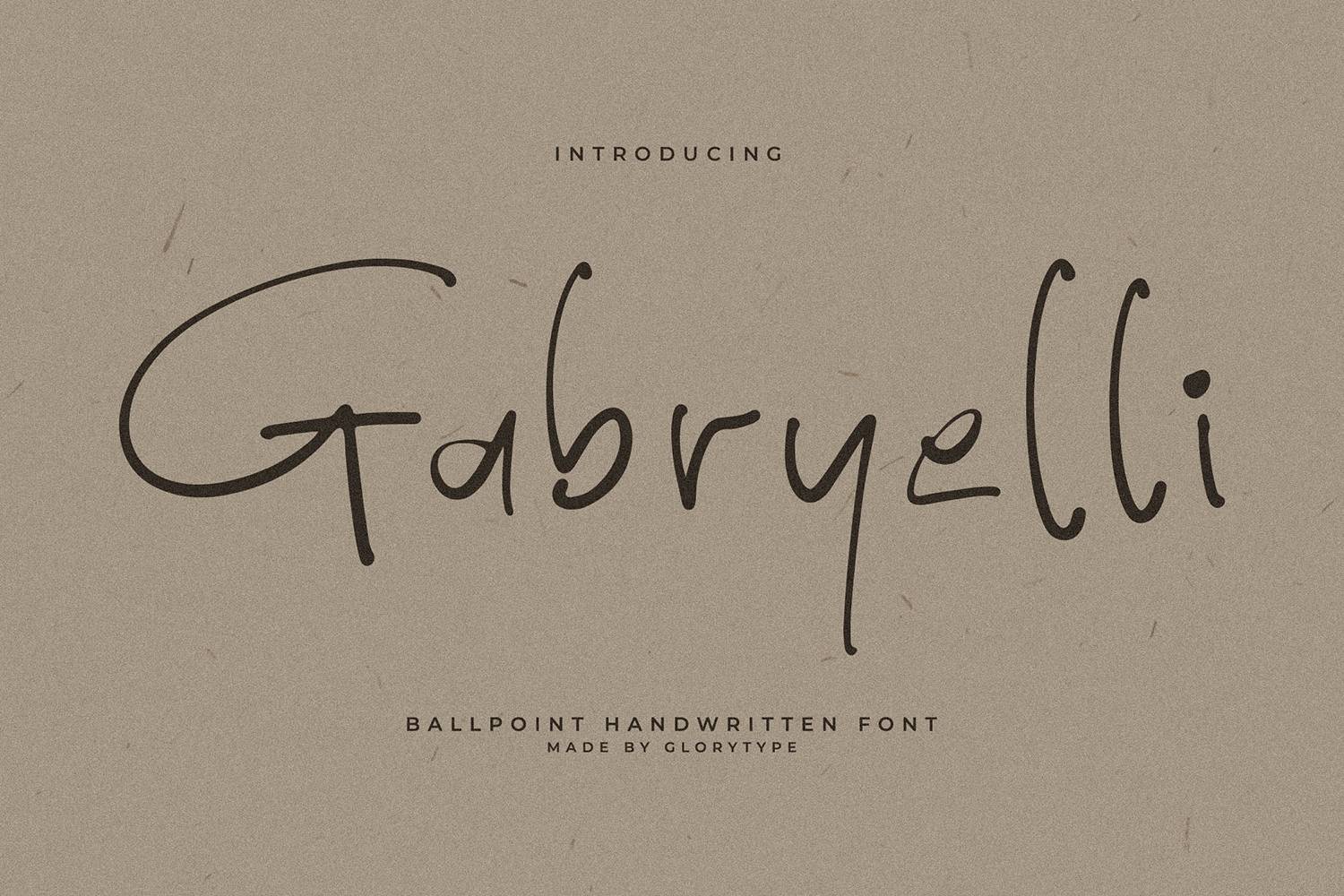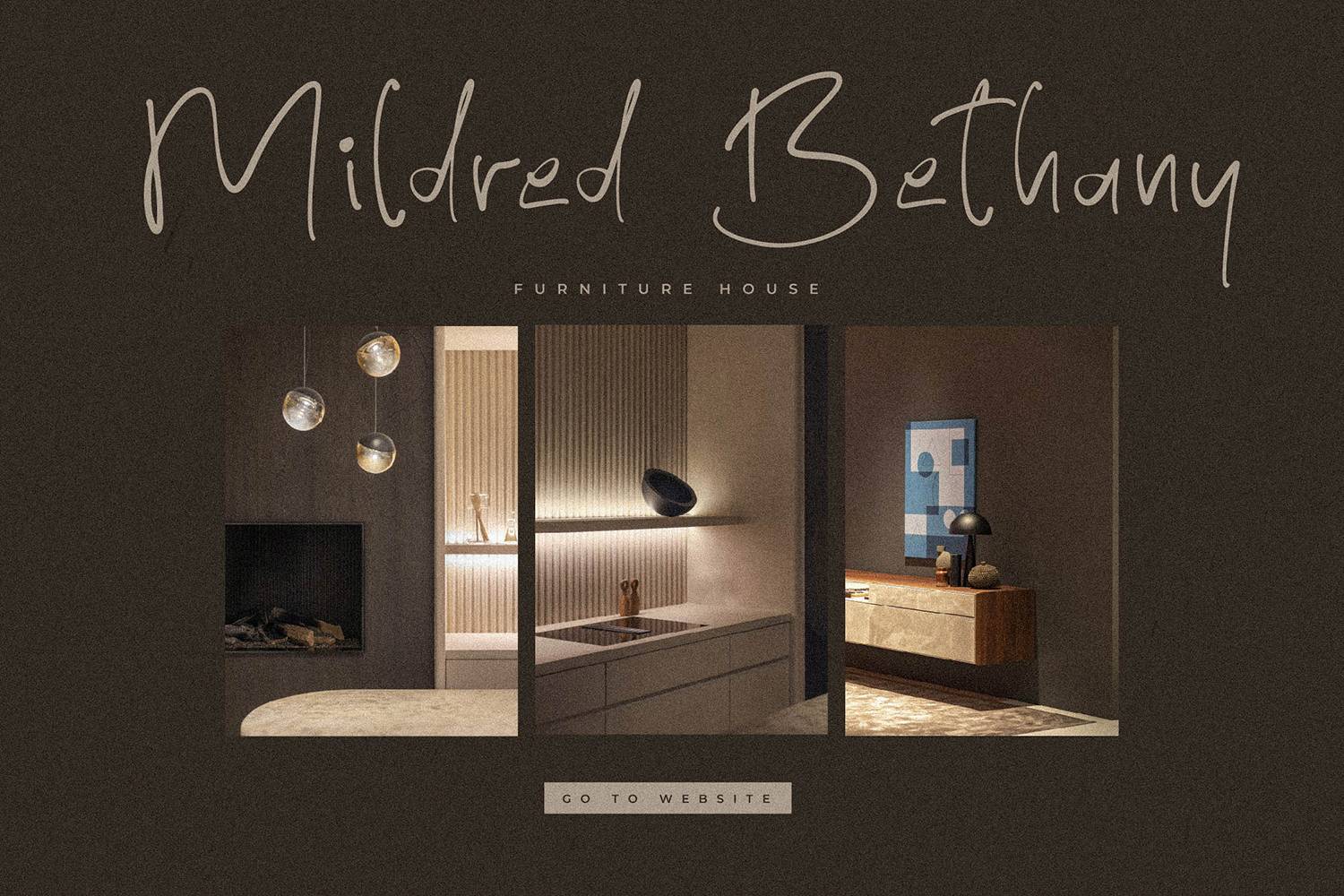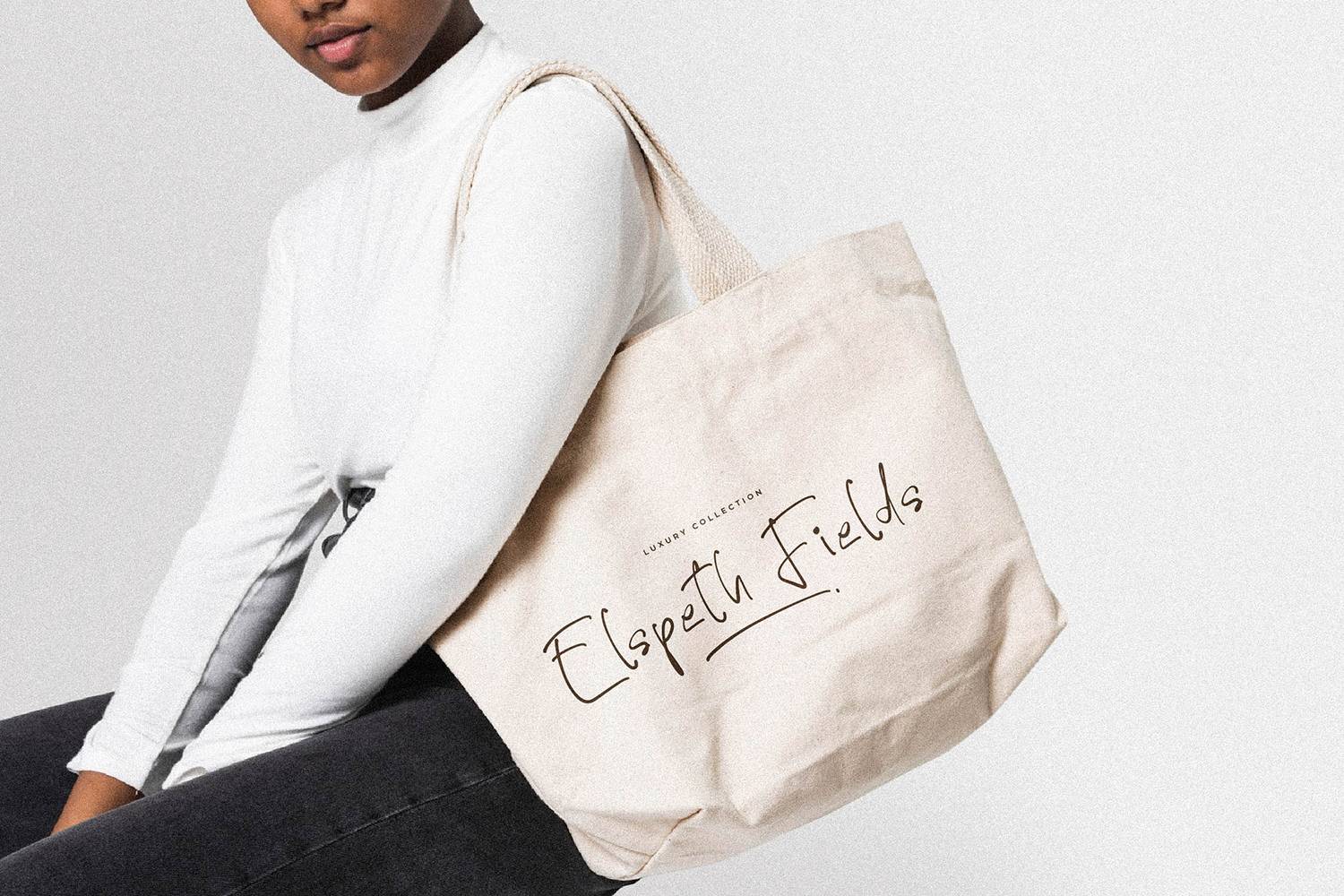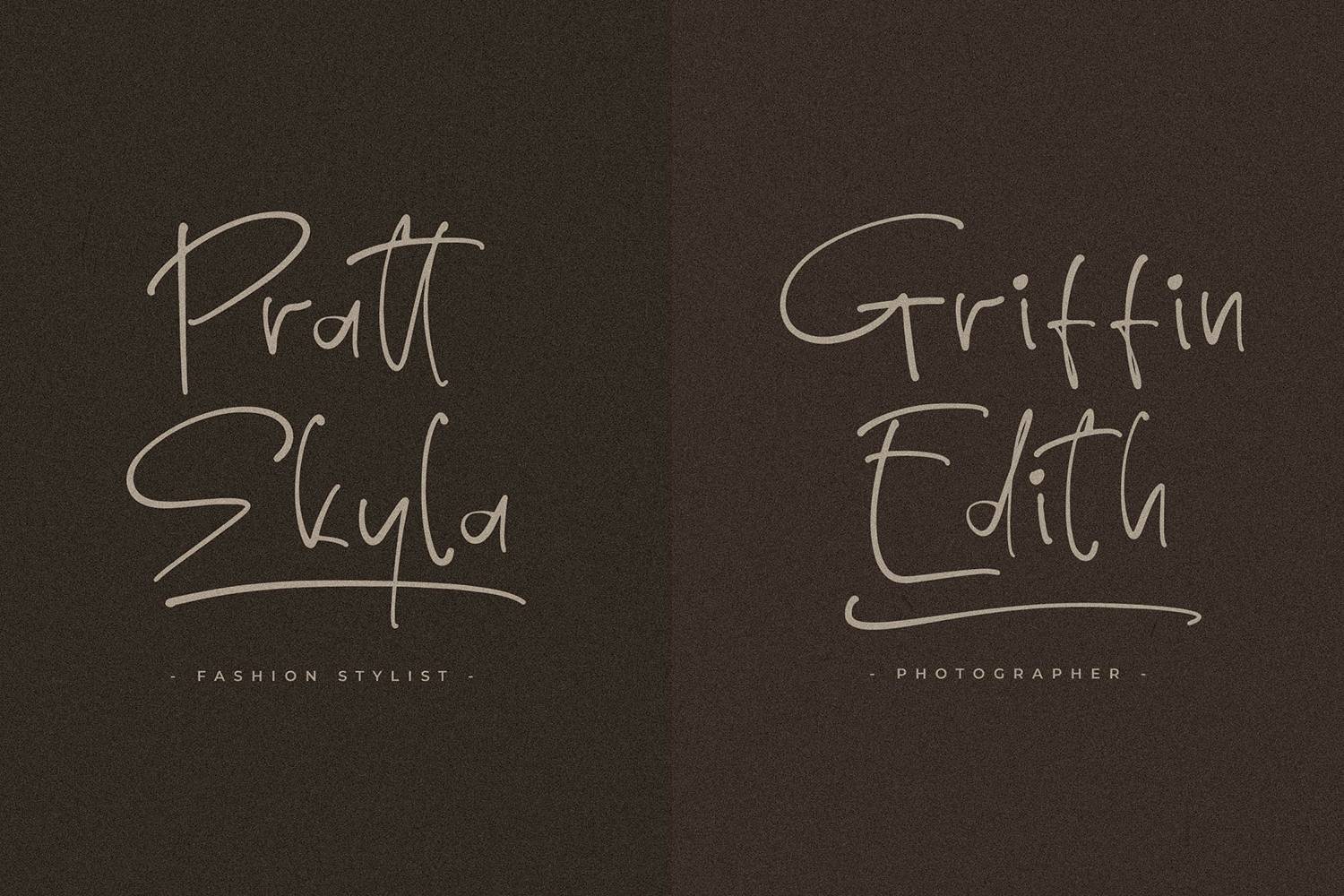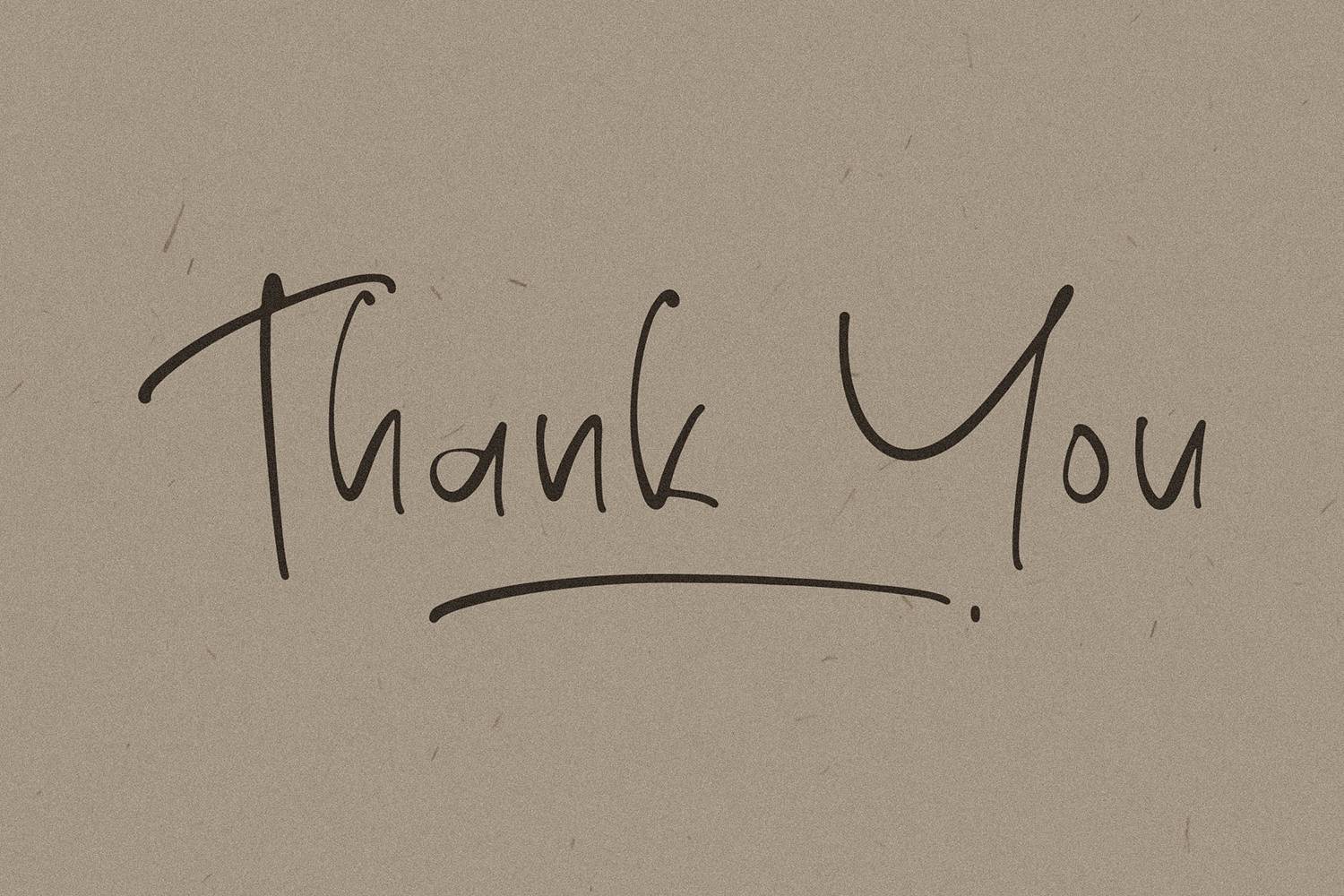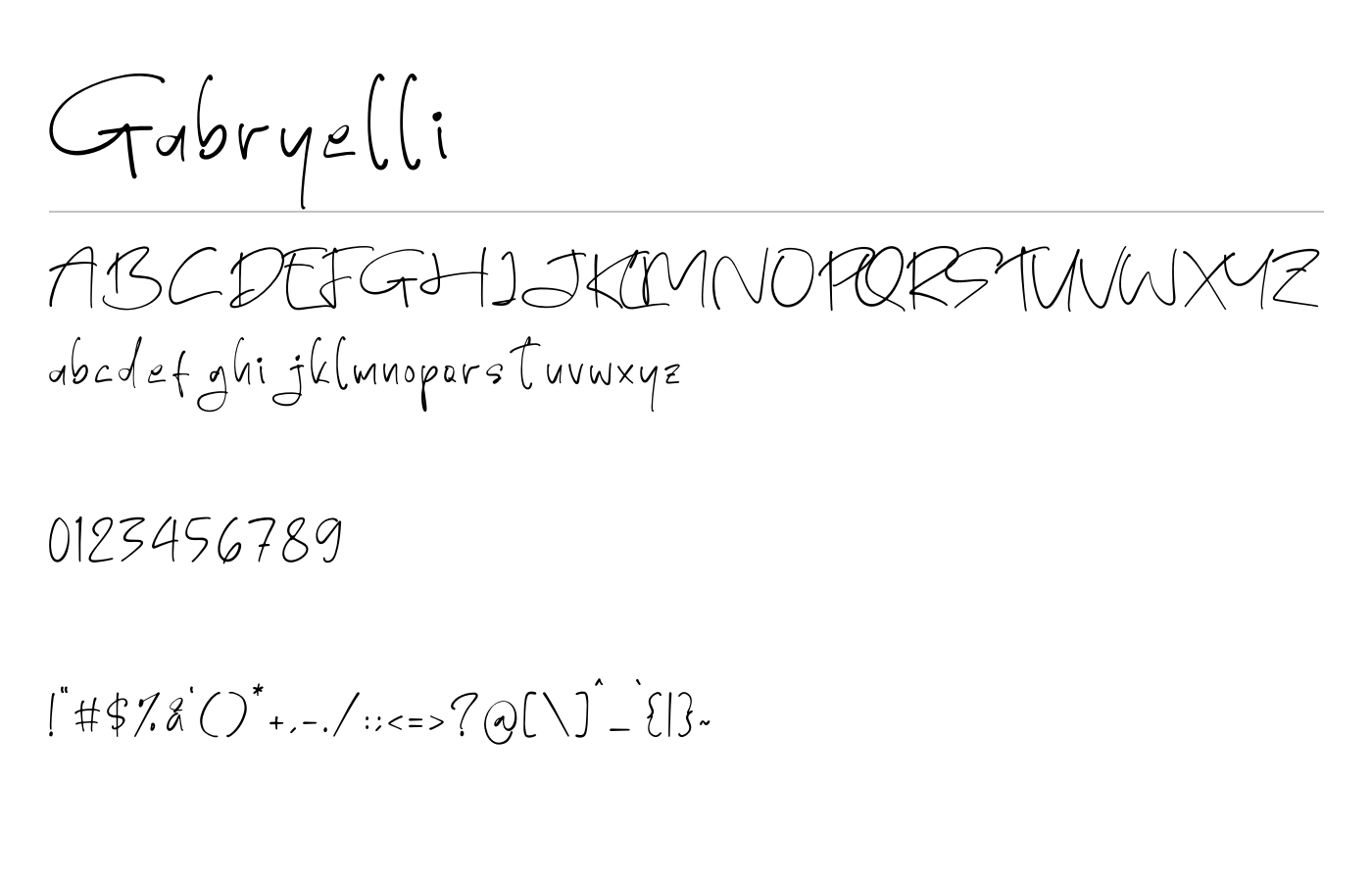
Gabryelli is a delicate, handwritten script font characterized by its thin, irregular strokes and casual, airy letterforms that mimic natural handwriting. It offers a playful yet elegant feel suited for creative and personal projects such as invitations, branding, or artistic headlines, where a unique, informal touch is desired. This font works best in designs that seek warmth and individuality rather than formality or heavy readability.
Gabryelli Font
About Gabryelli Font